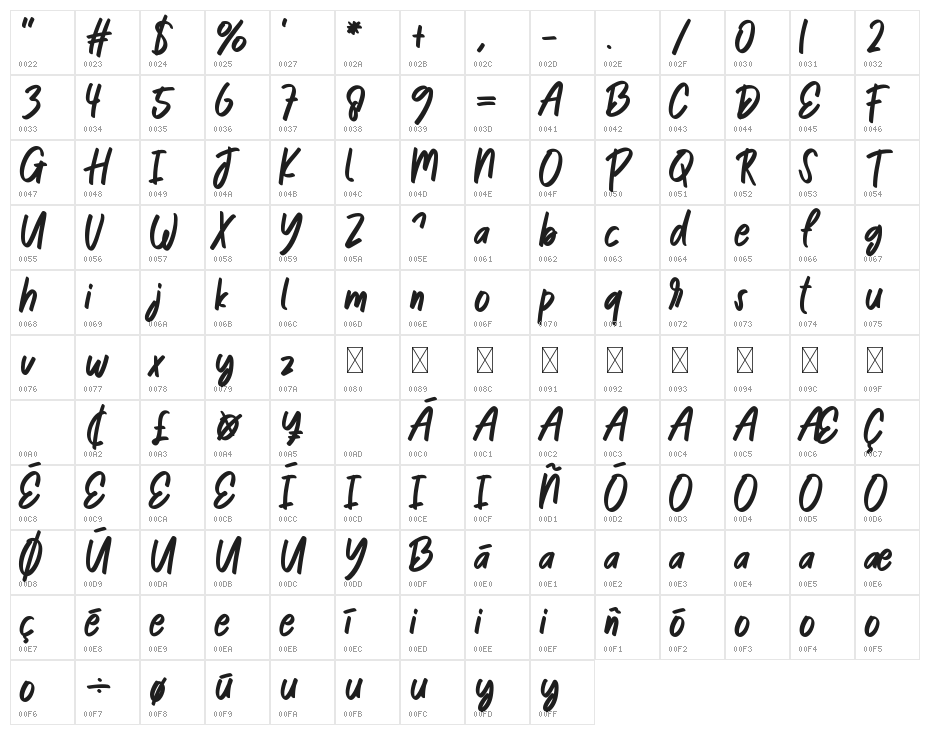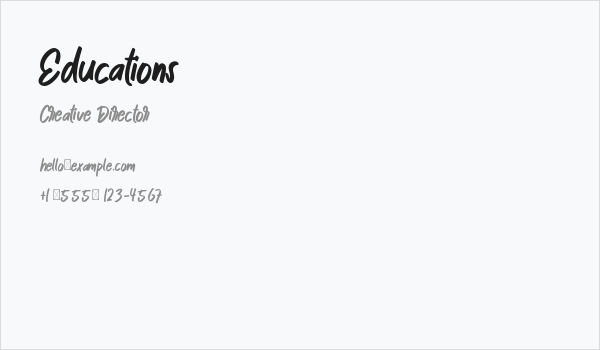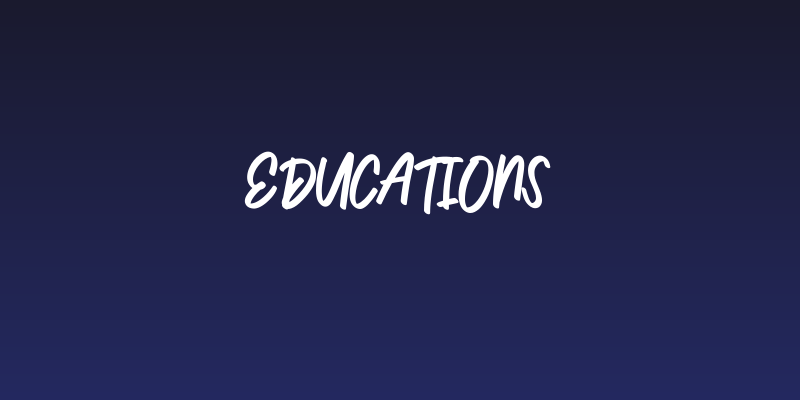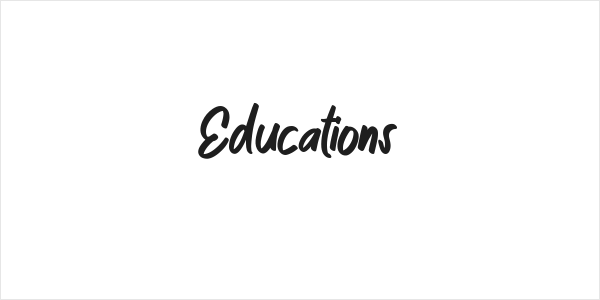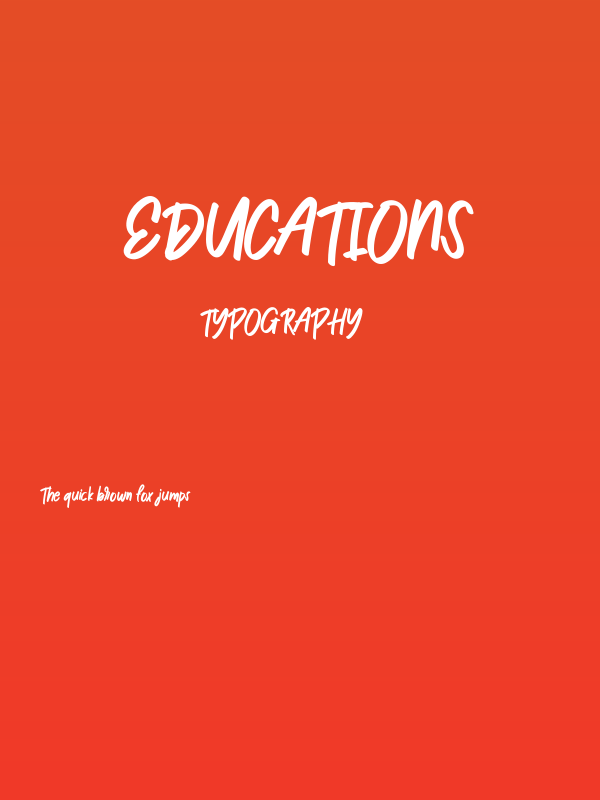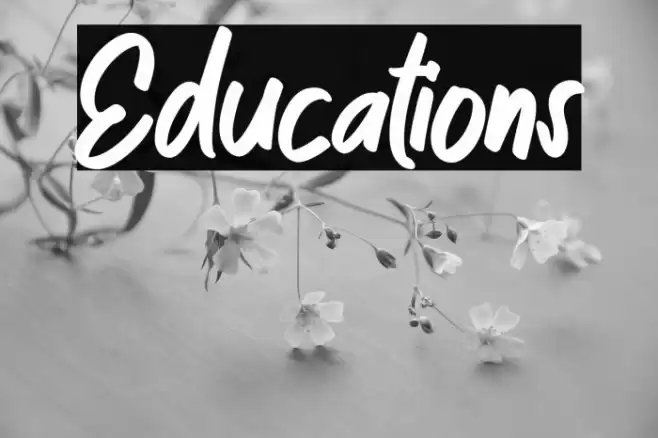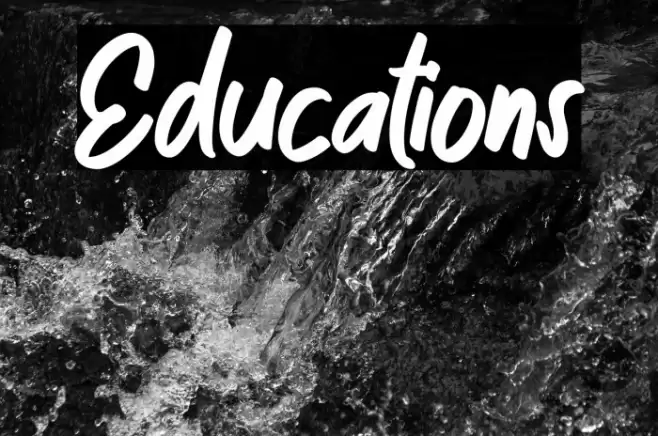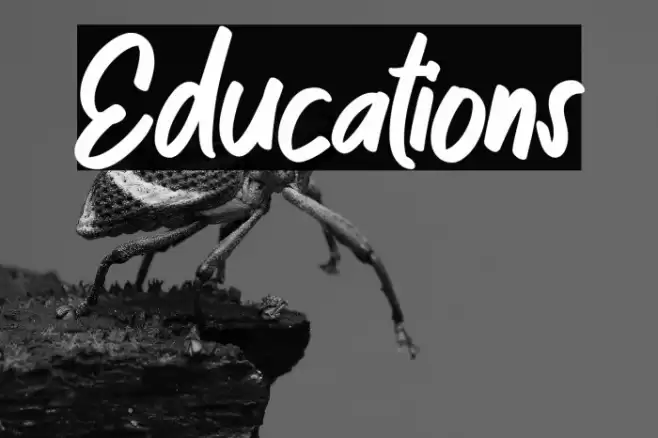
Educations Font
Educations Description
A casual, handwritten script font with a playful and dynamic style, featuring bold strokes and a slightly slanted appearance.
| Overall Style | Casual, Handwritten, Playful |
| Use Case | Headlines, Logos, Personal projects, Creative branding |